Jim Sintergate Font
Jim Sintergate is a timeless and incredibly relaxed handwritten font. It looks stunning on wedding invitations, thank you cards, quotes, greeting cards, logos, business cards and every other design which needs a handwritten touch. This font is PUA encoded which means you can access all of the glyphs and swashes with ease!
Batherly Font
Batherly is a delicate, vintage styled handwritten font. It features a varying baseline, smooth lines, gorgeous glyphs and stunning alternates. Fall in love with its incredibly versatile style and use it to create spectacular designs!
Charlie Angela Font
Charlie Angela is an incredibly distinct, delicate and timeless handwritten font. It looks stunning on wedding invitations, thank you cards, quotes, greeting cards, logos, business cards and every other design which needs a handwritten touch.
Old West Font
Old West is a fun, rustic and vintage display font. Bold and thick lettered, this font will make any design idea stand out!
Mastura Font
Mastura feels equally charming and elegant. It looks stunning on wedding invitations, thank you cards, quotes, greeting cards, logos, business cards and every other design which needs a handwritten touch. This font is PUA encoded which means you can access all of the glyphs and swashes with ease!
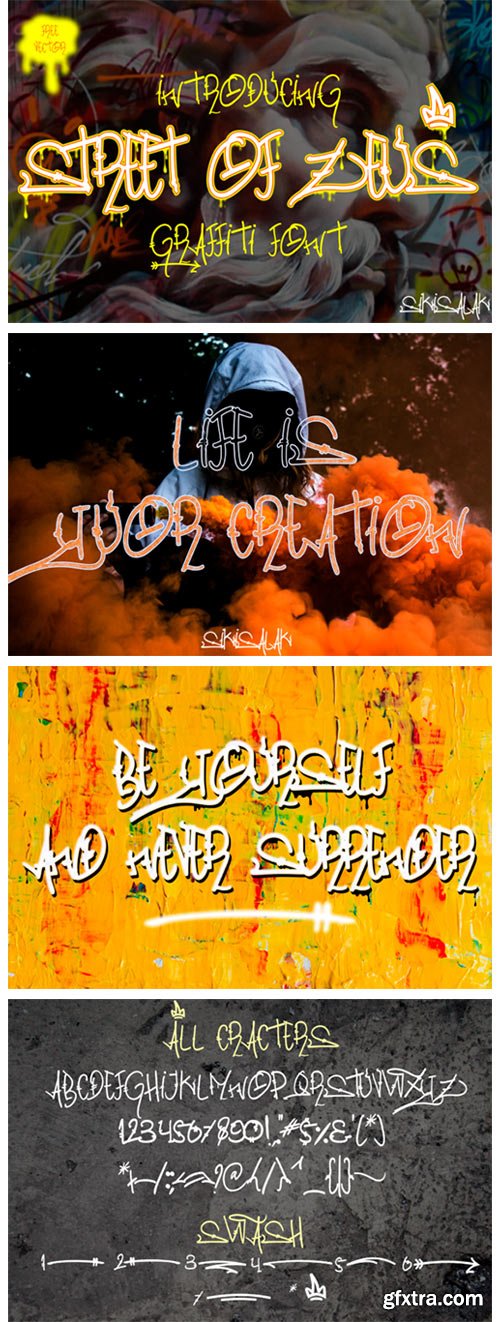
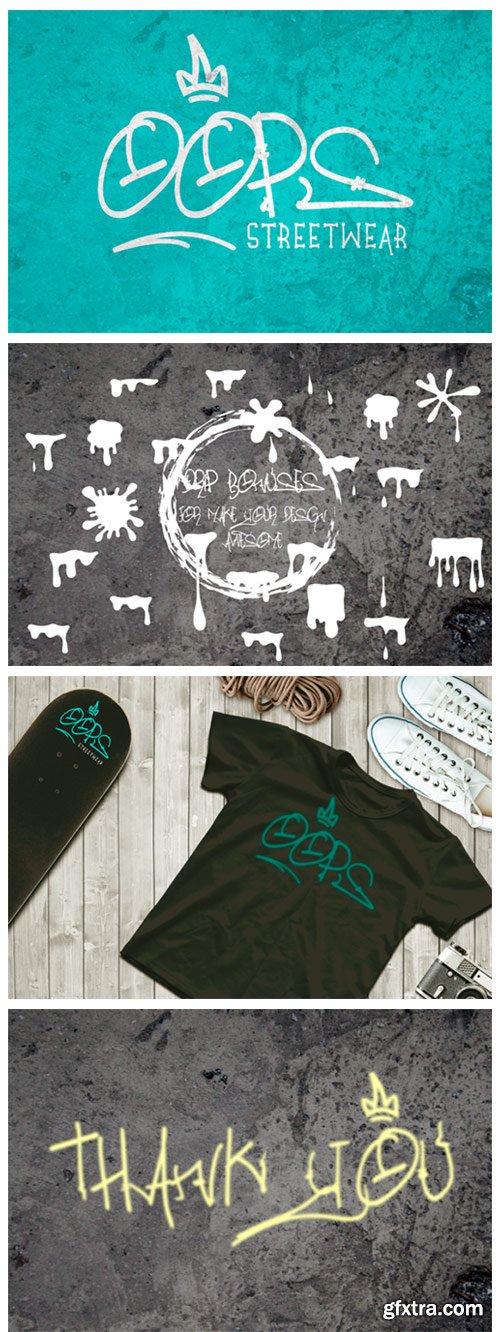
Street of Zeus Font
Street Of Zeus is an urban styled display font. It will elevate a wide range of design projects to the highest level, be it branding, headings, invitations, signatures, logos, labels, and much more.
Kopi Robusta Font
Kopi Robusta is a cool and strong display font. It’s perfect for logos, magazines, headers, or even large scale artwork. Get creative with its unique look and create amazing designs!
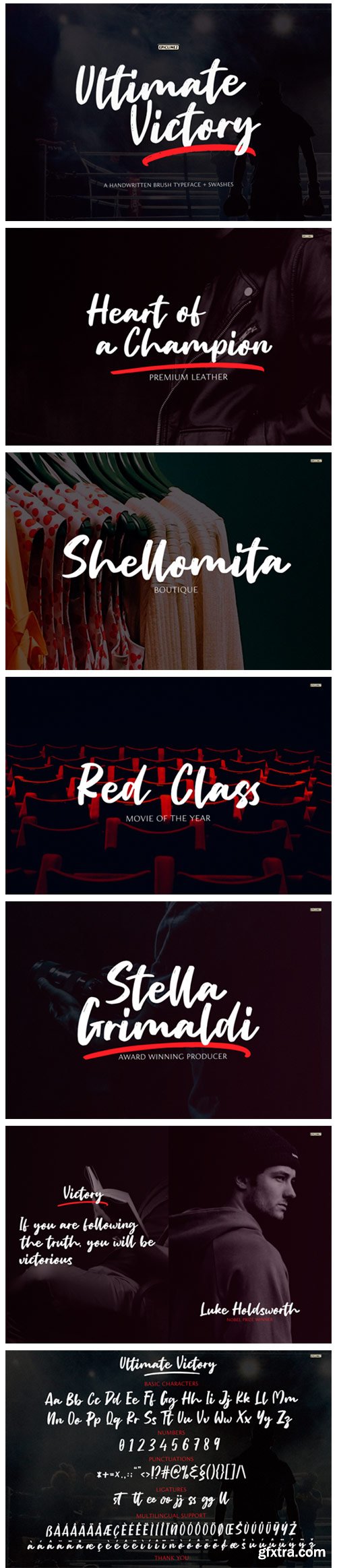
Ultimate Victory Font
Ultimate Victory is a cool and urban styled handwritten font, created with the help of a brush pen. It is the best choice for creating eye catching logos, branding and quotes.
Loremita Signature Font
Loremita Signature is a stylish and relaxed handwritten font. It is the best choice for creating eye catching logos, branding and quotes. Every letter has a unique and beautiful touch, which will make your design come alive!
Nano-Nano Font
Nano-Nano is a simple and neat sans serif font. It can easily be matched to an incredibly large set of projects, so add it to your creative ideas and notice how it makes them stand out!
The King of Romance Font
The King Of Romance is a classic and elegant handwritten font. It is enriched with alternative characters and ligatures that make this font even more beautiful. Add it to your favorite creative ideas and make them stand out!
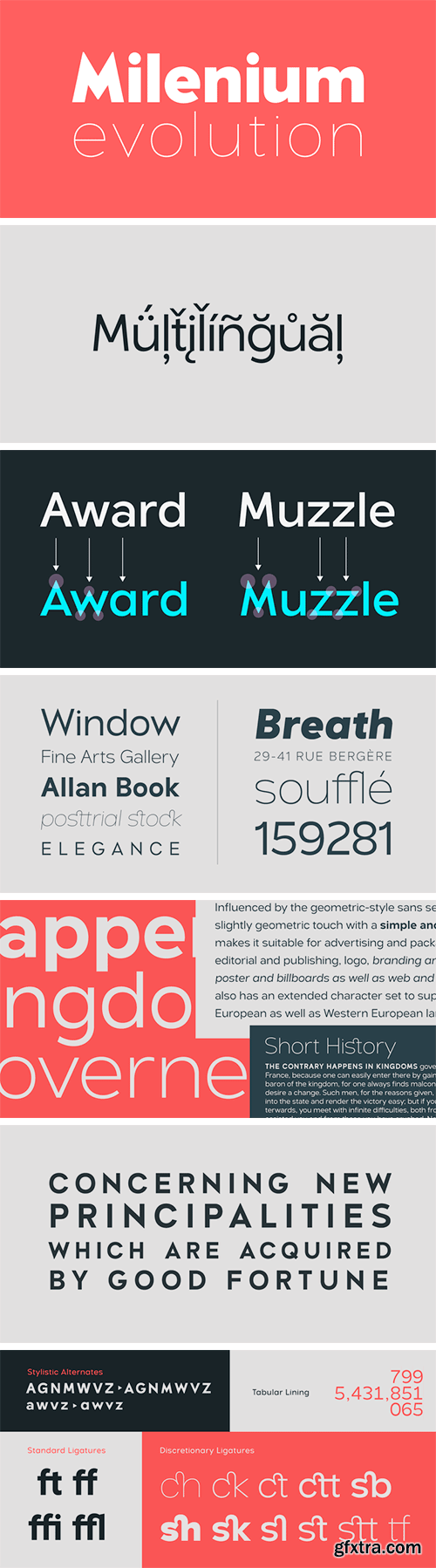
Delecta is a sans serif family of seven weights + matching italics. Influenced by the geometric-style sans serif faces. The font has a slightly geometric touch with a simple and clean personality which makes it suitable for advertising and packaging, festive occasions, editorial and publishing, logo, branding and creative industries, poster and billboards as well as web and screen design. It has some OpenType features like all new and modern fonts such as “stylistic alternates” which includes an elegant set of chars changing the feel of the font. The font also has an extended character set to support Central and Eastern European as well as Western European languages.
Jacky Black Font
Jacky Black is a thin and delicate handwritten font. It maintains its classy calligraphic influences while feeling contemporary and fresh. Fall in love with it and bring your projects to the highest levels!
Artline Font
Artline is an exquisite handwritten font, masterfully designed to become a true favorite. It maintains its classy calligraphic influences while feeling contemporary and fresh. Fall in love with it and bring your projects to the highest levels!
Winter Cloud Font
Winter Cloud is a flowing handwritten font. It has a modern and elegant style that makes it perfect for a wide range of designs. Fall in love with its authentic feel and use it to create gorgeous wedding invitations, beautiful stationary art, eye-catching social media posts, and cute greeting cards.
Sauronking Font
Sauronking is an amazing blackletter font. It has a unique style and it will look great on logos, posters, headlines, packaging, tattoos, clothing, and much more!
Christ Memory Font
Christ Memory embodies fun, uniqueness and authenticity. This dazzling display font will turn any creative idea into a standout!
The Creepy Font
The Creepy is an incredibly fun and spooky display font. Ideal for any October party or Halloween design, this font will elevate any creative idea you have in mind.
Motherlove Font
Motherlove is an incredibly distinct, delicate and timeless handwritten font. It looks stunning on wedding invitations, thank you cards, quotes, greeting cards, logos, business cards and every other design which needs a handwritten touch. This font is PUA encoded which means you can access all of the glyphs and swashes with ease! It features a varying baseline, smooth lines, gorgeous glyphs and stunning alternates.
Harga Font
Harga is a simple and unique display font. Its natural and unique style makes it incredibly fitting to a large pool of designs.
Signature Brush Font
Signature Brush is a flowing and delicate handwritten font. It looks stunning on wedding invitations, thank you cards, quotes, greeting cards, logos, business cards and every other design which needs a handwritten touch.
Kiddosy Font
Kiddosy is a fun and playful display font. Simple and friendly, this font will be ideal for any party invitation or thank you card you wish to create!